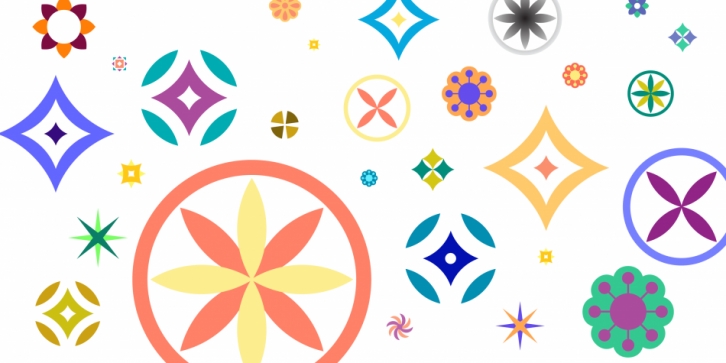
Publisher: Tarallo Design
Designed by Donald Tarallo, Poeta Color is a dingbat font family. This typeface has seven styles and was published by Tarallo Design.
Poeta is a color dingbat font of floral, sun, and nature motifs with diverse cultural origins. This font began with sketches of patterns seen around Sicily; a land rich in poetry.
There are seven different fonts in this family. Each font has a different color or grey combination; solid (black), grey, gradient, primary, secondary, tertiary, and diverse. Each dingbat has individual colored parts. Those who desire to make a single color dingbat can do so with the solid font.
Designers can use Poeta to make unique line patterns,fields, borders, or other ornamentation. The dingbats are versatile enough for pure visual embellishment or for creating a festive seasonal or holiday mood. Play with layering and opacity to explore the additional color-mixing potential of this font.
· Poeta Color Diverse
· Poeta Color Gradient
· Poeta Color Grey
· Poeta Color Solid
· Poeta Color Primary
· Poeta Color Secondary
· Poeta Color Tertiary